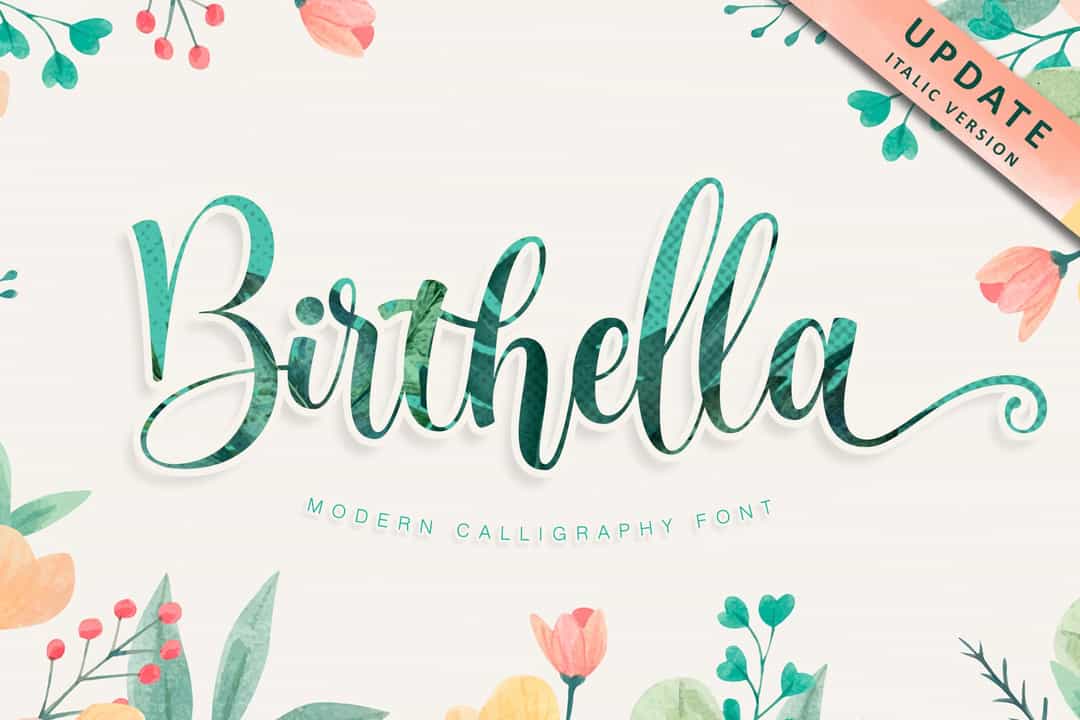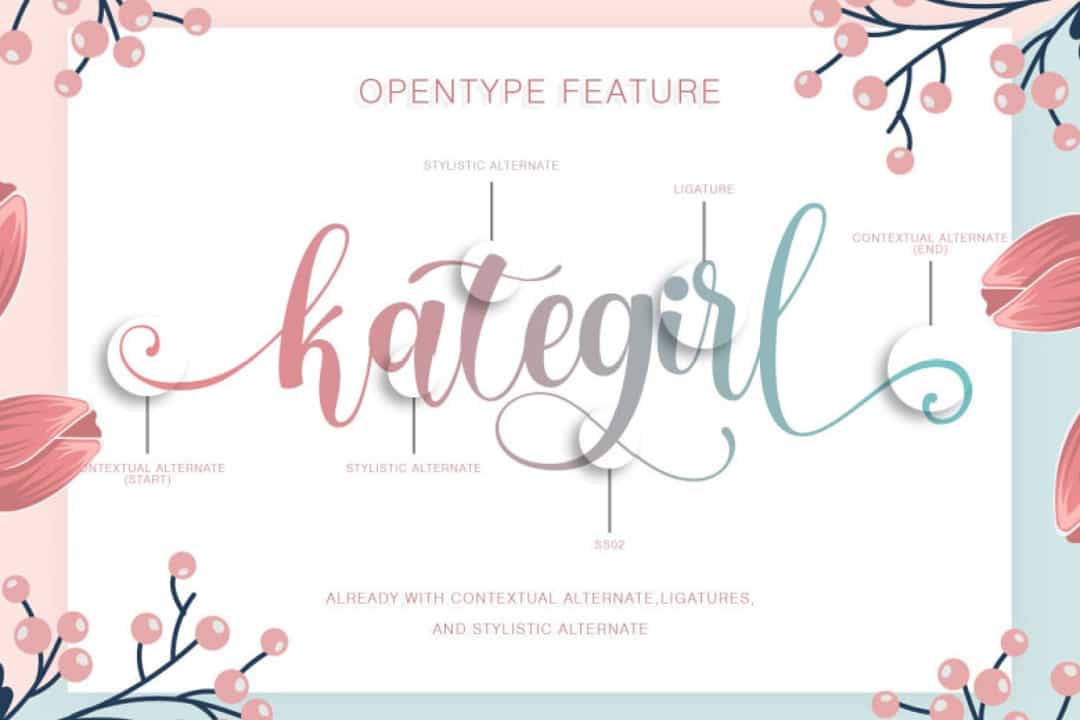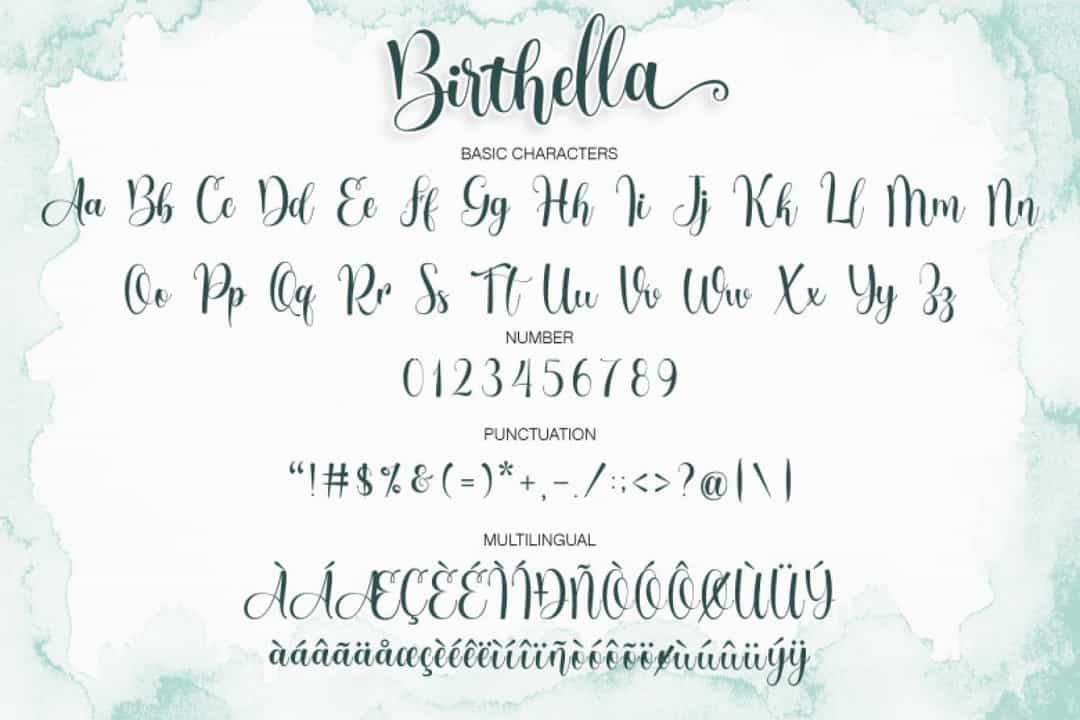
Birthella is an adorable calligraphy script font with a playful yet sweet style, perfect for turning any creative concept into something truly eye-catching. This font can transform any creative idea into an impressive reality; use it for logos branding, modern advertising design, posters, quotes, book/cover titles editorial designs website/blog and T-shirt printing; as well as any other needs requiring handwriting.